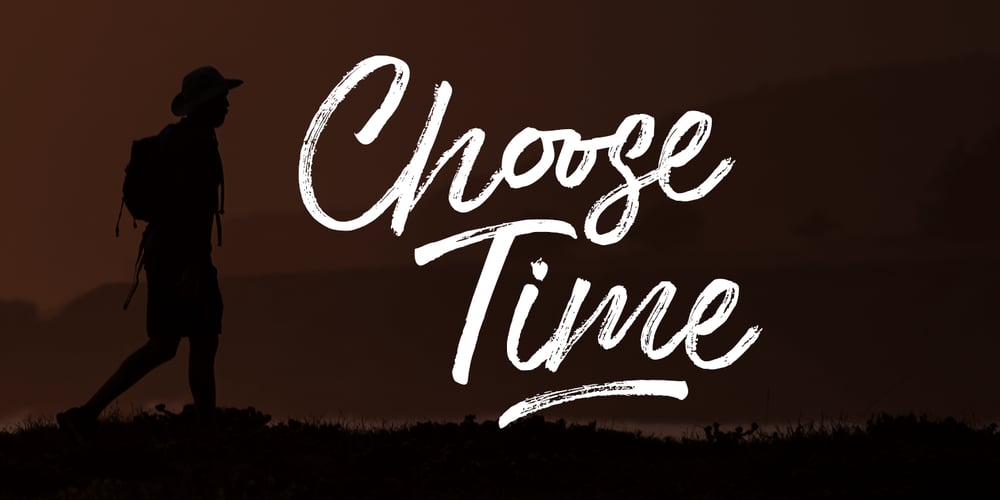
Choose Time Font Family was designed by Yur Lis and published by Stripes Studio. Choose Time contains 2 styles and family package options. Choose Time is a super casual hand brushed script with detailed brush stroke texture, and a quirky, Can be used for various purposes. such as the title, signature, letterhead, signage, labels, newsletters, posters, logos, correspondence, wedding invitations, badges, etc.Choose Time Font international Support for a review of most Western languages included.